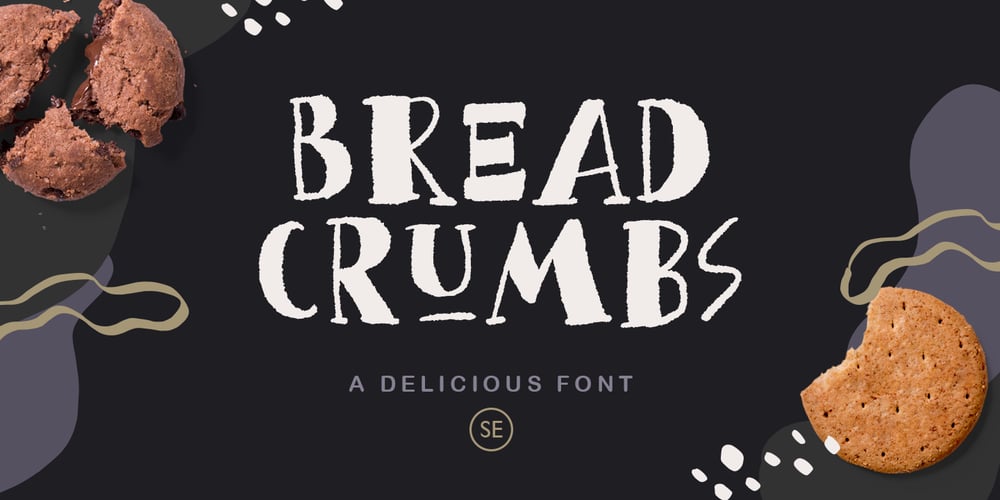
Bread Crumbs
Bread Crumbs font
Bread Crumbs Font Family was designed by Sarid Ezra and published by Sarid Ezra. Bread Crumbs contains 1 styles and family package options. Bread Crumbs is a unique hand lettered font. It’s also have a delicious taste that will make you project more stunning and give all the attentions for your works!